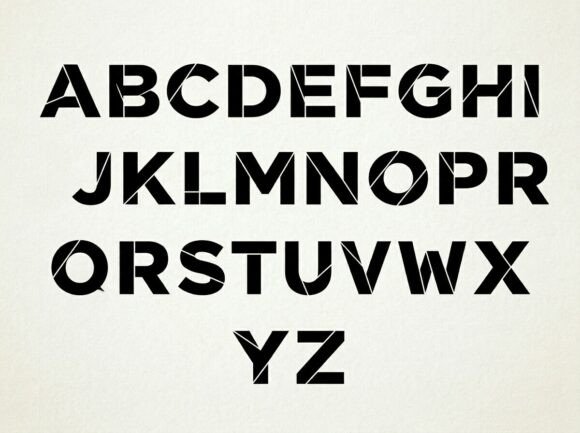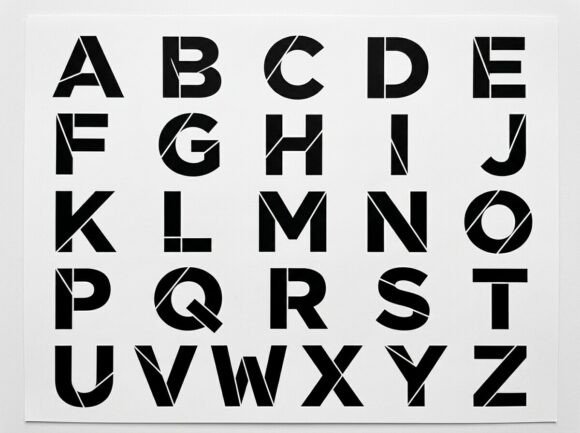
Austin Font: A Stunning Decorative Display Font for Creative Minds
Are you tired of using the same old fonts for your creative projects? Look no further than the Austin Font, a unique and artistic display font designed to make a statement. With its strong visual personality and decorative elements, this font is perfect for creators who want to break away from the ordinary and add a touch of elegance to their work.
What Makes Austin Font Special?
The Austin Font is a decorative display font that is specifically designed to be the center of attention. Its unique artistic elements and strong visual personality make it perfect for bold headlines, artistic logos, and creative packaging. Whether you’re a designer, craftsperson, or DIY enthusiast, this font is sure to elevate your creative projects to the next level.
Key Features of Austin Font
• ALL-CAPS (Uppercase Only) Display Typeface: The Austin Font is specifically designed for high-impact headlines, logos, and decorative initials where every letter is a work of art. Please note that this font does not include lowercase letters.
• Versatile and Professional: The Austin Font maintains a professional and polished finish, making it suitable for a wide range of creative applications.
Use Cases for Austin Font
The Austin Font is perfect for a variety of creative projects, including:
• Bold Headlines: Add a touch of drama and elegance to your headlines with the Austin Font’s unique and artistic elements.
• Artistic Logos: Create stunning logos that stand out from the crowd with the Austin Font’s strong visual personality.
• Creative Packaging: Elevate your packaging design with the Austin Font’s decorative elements and professional finish.
• Decorative Initials: Add a touch of sophistication to your decorative initials with the Austin Font’s artistic and elegant design.
Tips for Using Austin Font
To get the most out of the Austin Font, here are a few tips to keep in mind:
• Use it sparingly: The Austin Font is a decorative display font, so use it sparingly to add emphasis and visual interest to your design.
• Pair it with a simple font: Pair the Austin Font with a simple font to create visual contrast and add depth to your design.
• Experiment with different sizes: Experiment with different sizes and arrangements to create a unique and visually appealing design.
The Austin Font is a stunning decorative display font that is perfect for creators who want to add a touch of elegance and sophistication to their work. With its unique artistic elements, strong visual personality, and professional finish, this font is sure to elevate your creative projects to the next level. So why wait? Download the Austin Font today and start creating stunning designs that stand out from the crowd!